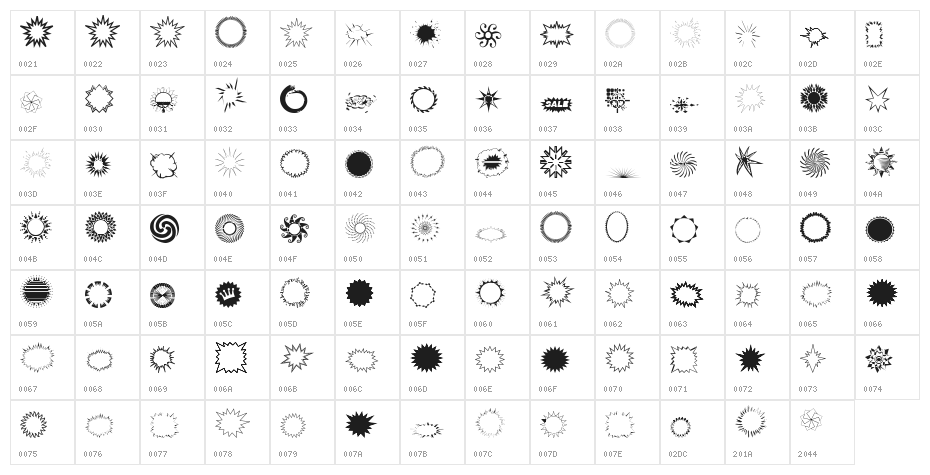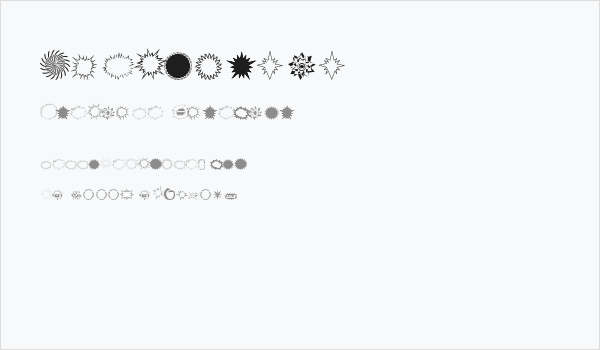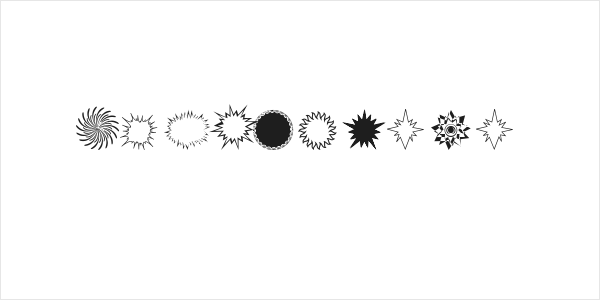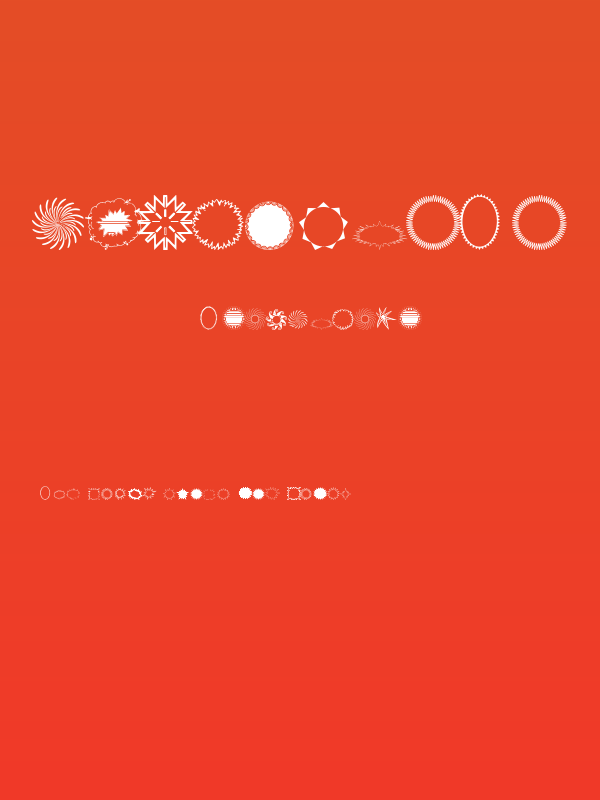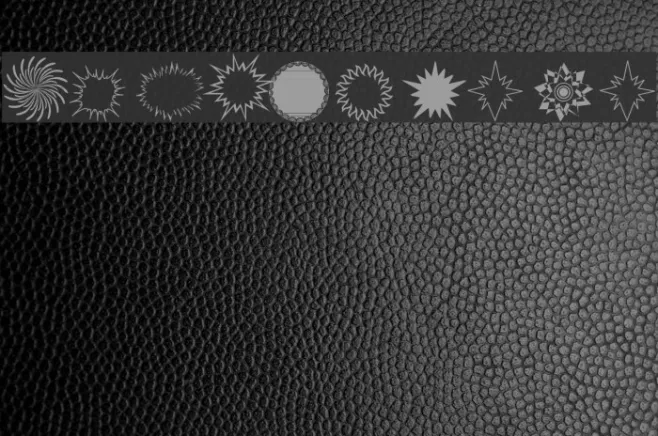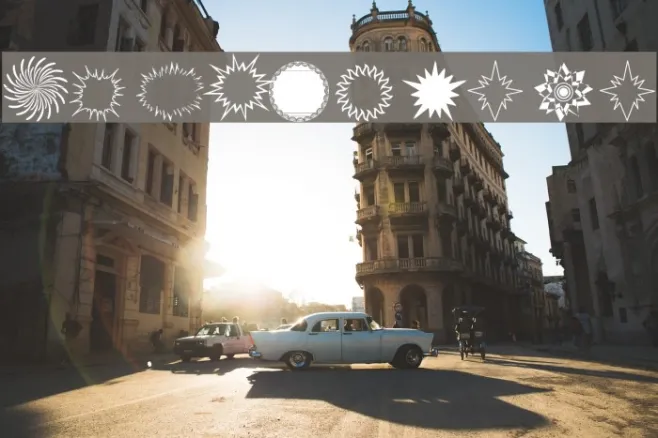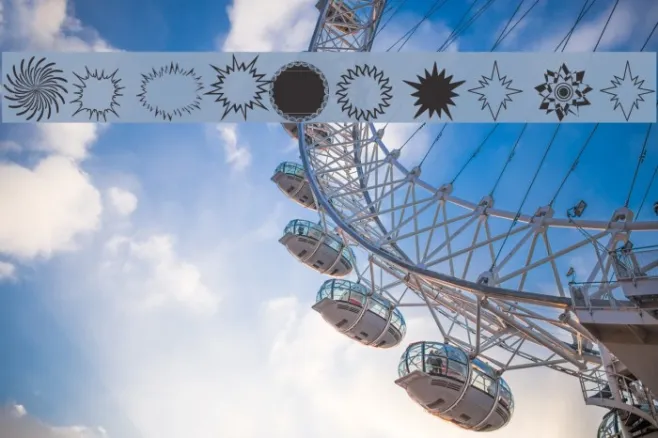
IdeaBursts Font
IdeaBursts Description
A collection of decorative burst and starburst shapes in various styles, including solid, outlined, spiked, circular, and abstract forms, all in black and white. The set features a wide range of energetic and dynamic designs suitable for attention-grabbing visual elements.
| Overall Style | Decorative, Dynamic, Playful |
| Use Case | Logos, Headlines, Labels, Callouts, Sale tags, Visual accents |
| Proposed Projects | Posters, advertisements, comic book effects, product labels, sale tags, digital stickers, and graphic design accents. |